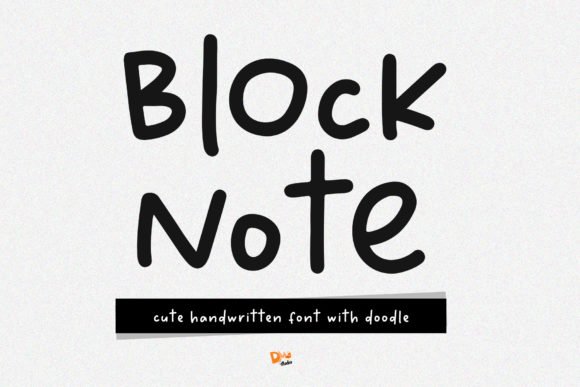
Discover the Joy of Handwritten Charm with Block Note Font
Have you ever sat down with a blank sheet of paper, a cup of coffee, and let your creativity flow onto the page? For many designers, this is the moment when ideas come alive. It’s the spark that ignites a passion project, a new brand identity, or a social media campaign that sets hearts aflutter. This is where the magic happens, and for many of us, it’s where the Block Note Font comes into play.
Block Note Font is a warm and friendly handwritten font that’s perfect for all your creative endeavors. Whether you’re crafting a logo, building a brand, or simply adding a personal touch to your social media posts, this font is sure to bring a smile to your face and a touch of personality to your projects. As a designer, you know that the right font can make all the difference in capturing your audience’s attention and conveying your message. That’s why Block Note Font is a valuable addition to any designer’s toolkit.
Block Note Font Key Features
- Unique Characteristics: The font features a distinctive, handwritten style with varying line widths and irregularities, giving it a personal and expressive feel.
- Font Style: The font is designed in a single style, with a focus on legibility and readability, making it ideal for body text and long-form content.
- Language Support: The font supports a wide range of languages, including Latin, Cyrillic, and Greek scripts, making it a versatile choice for global applications.
Block Note Font Review
Overall, I think Block Note Font is a nice addition to any digital library, but it has its strengths and weaknesses.
- Unique aesthetic: Block Note Font has a distinct, block-like style that can be a great fit for certain designs or projects.
- Readability: Despite its bold appearance, the font is surprisingly easy to read, especially at larger sizes.
- Good for headings: The font’s blocky style makes it a great choice for headings and titles, adding a touch of personality to your design.
- Limited versatility: Block Note Font may not be the best choice for body text or long blocks of text, as it can become overwhelming.
- May not work for all audiences: The font’s bold style may not be suitable for designs that require a more subtle or minimalist approach.
- Not ideal for small sizes: At smaller sizes, the font can become difficult to read due to its blocky structure.
In conclusion, Block Note Font is a solid choice for designers looking to add a unique touch to their projects. However, it’s essential to consider the limitations and use it judiciously to ensure the best results.
Getting the Most Out of Block Note Font
Block Note Font is ideal for creating a distressed or vintage look in your designs. To get the most out of it, experiment with different font sizes, colors, and combinations of bold and italic text. You can also use it to create a hand-written or scribbled effect by adjusting the font’s spacing and alignment.
Block Note Font is commonly used in designs that require a casual, handwritten feel, such as:
- Invitations and event tickets
- Quotes and inspirational graphics